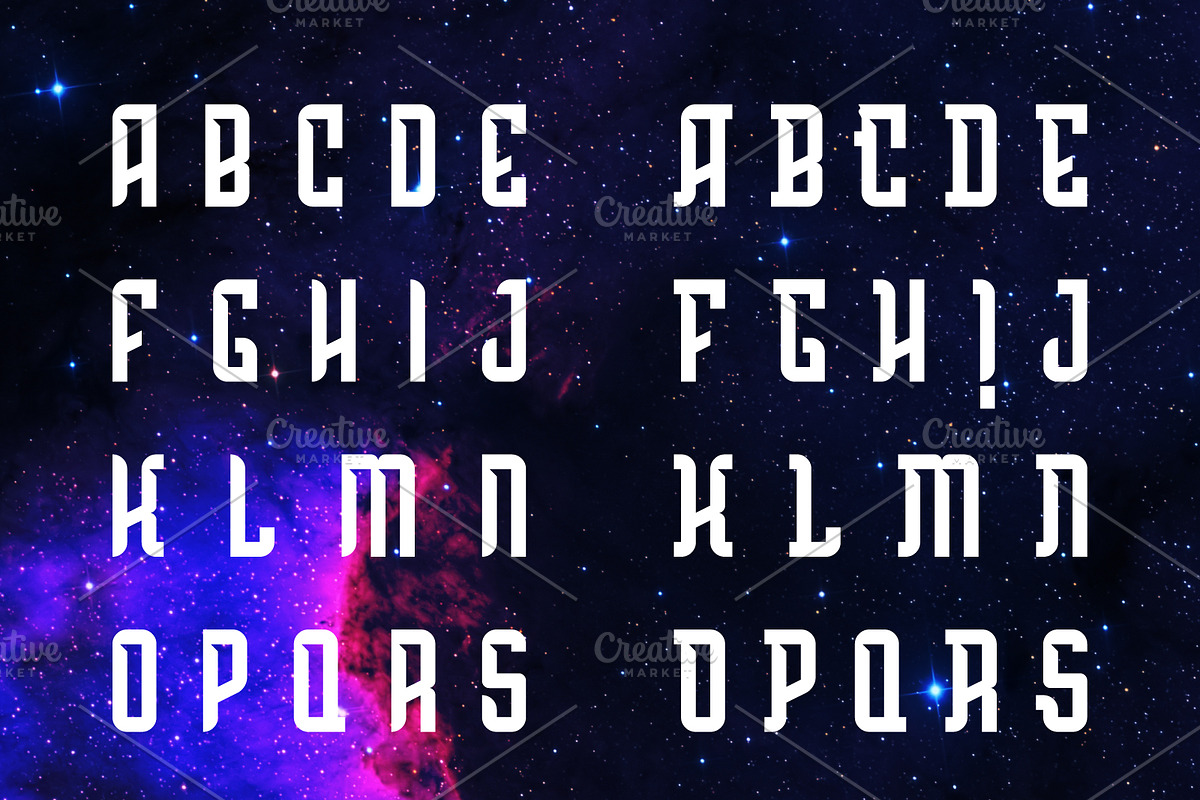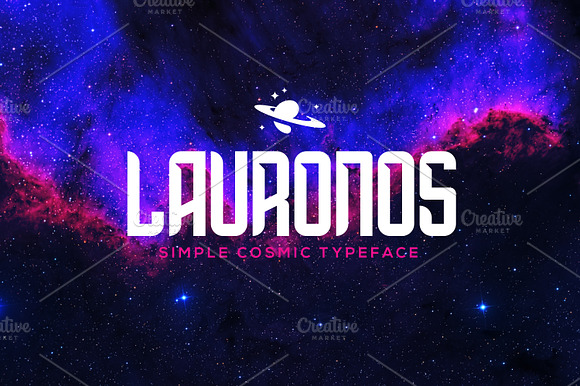
Lauronos Typeface
We are happy to present you the Lauronos typeface, the result of our second font project. This time we tried to achieve a more modern look, so in contrast to the Impreriem font set, this typeface comes in a futuristic sans serif style. Inspired from the atmosphere of numerous sci-fi universes, it's suitable for anyone who wants to achieve something unconventional.
26+26 standard and capital letters
21 Alternate characters